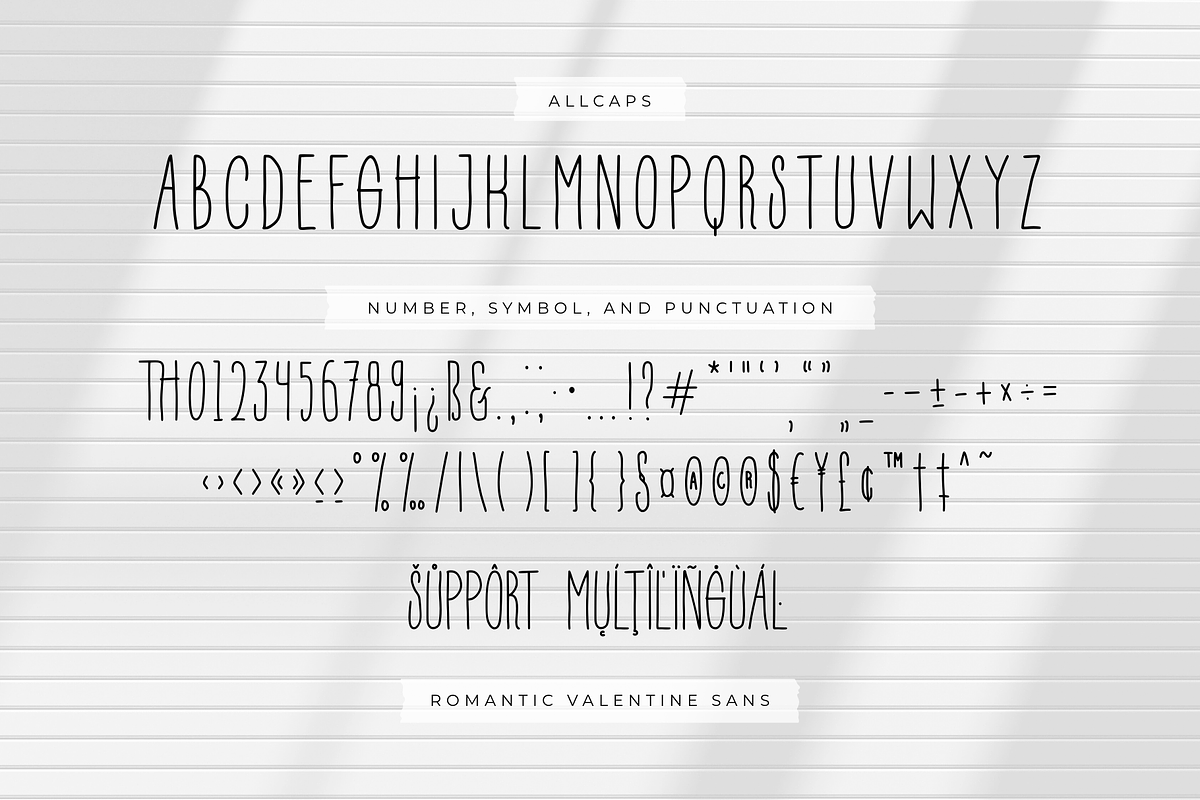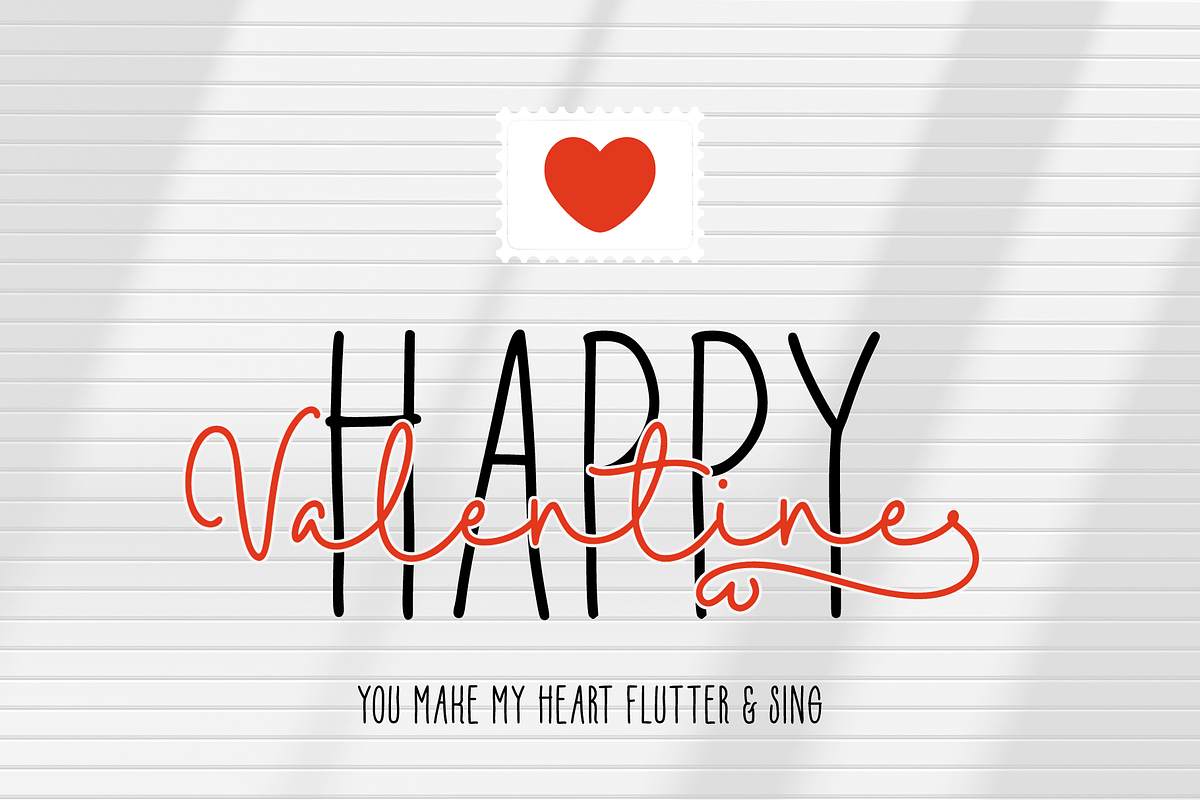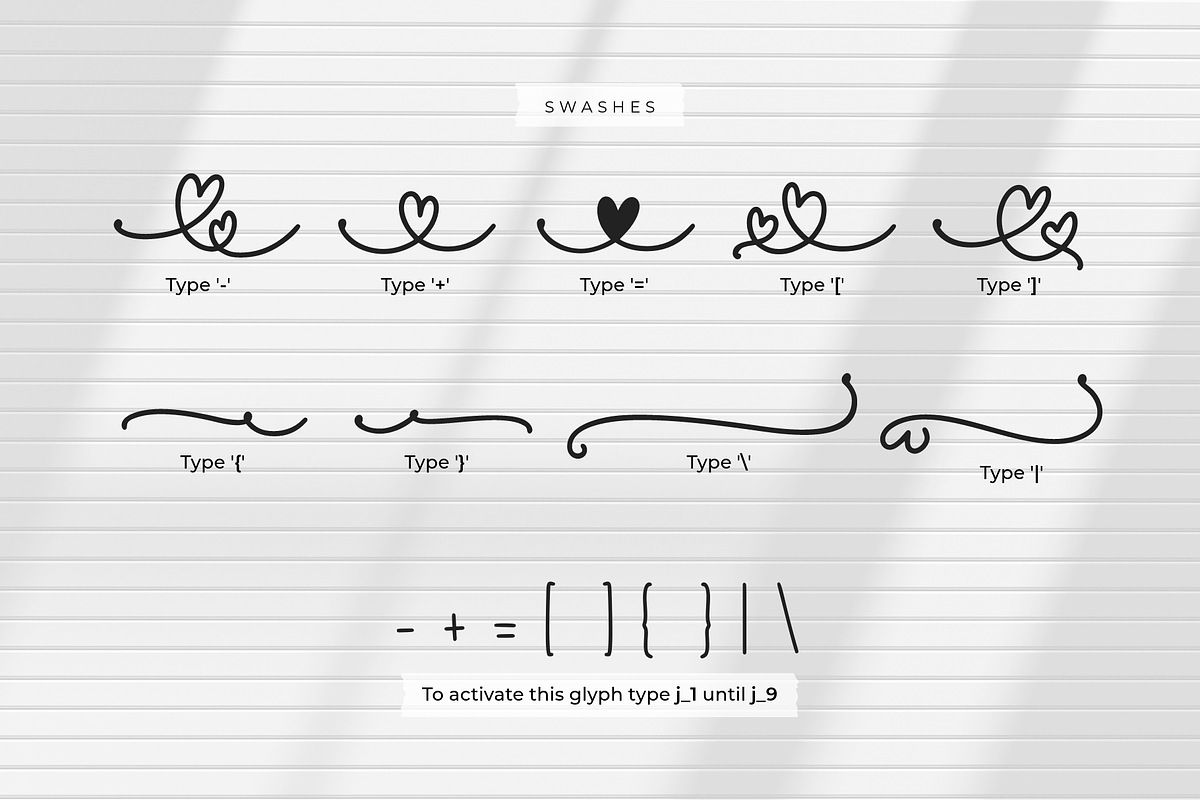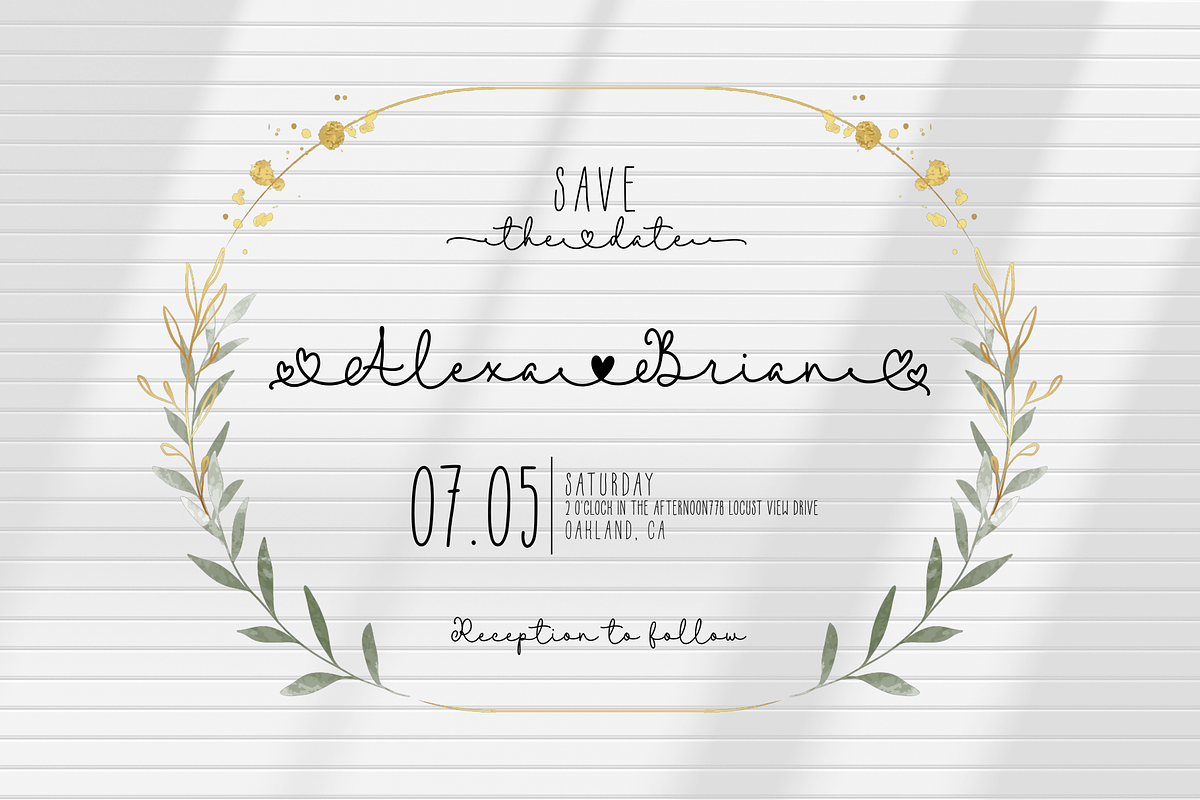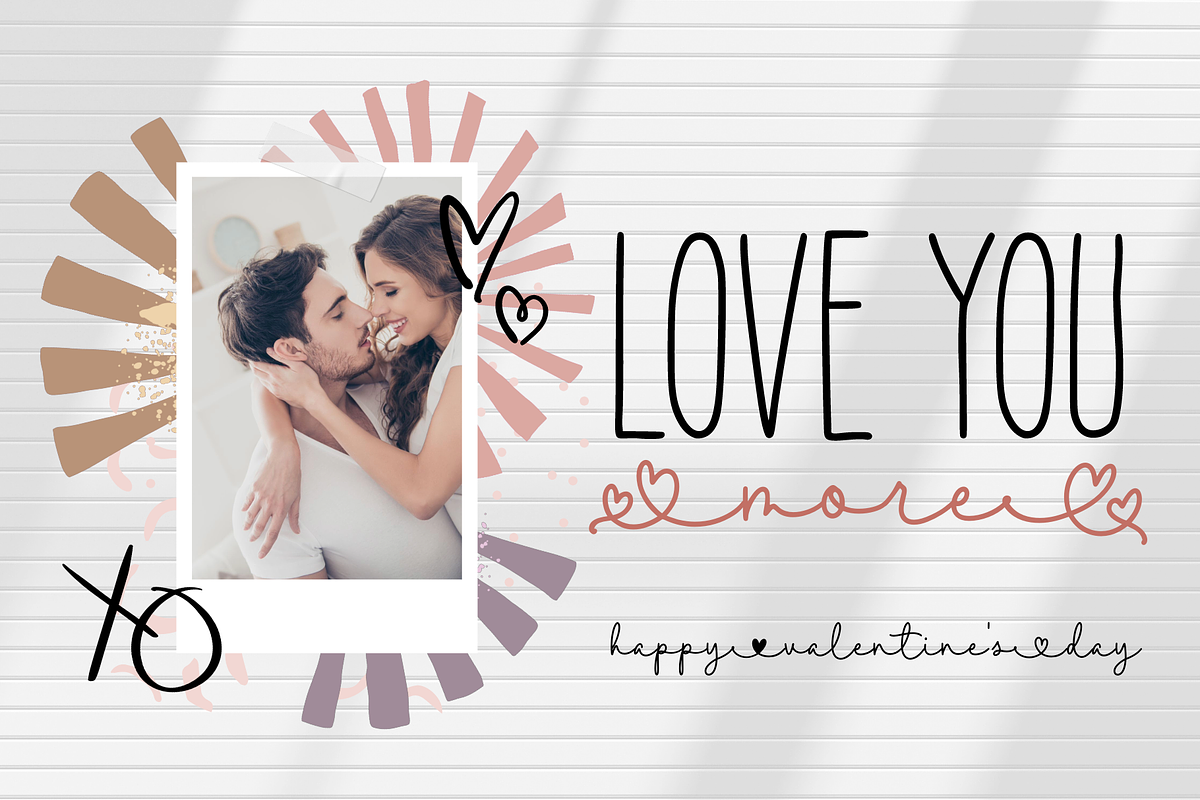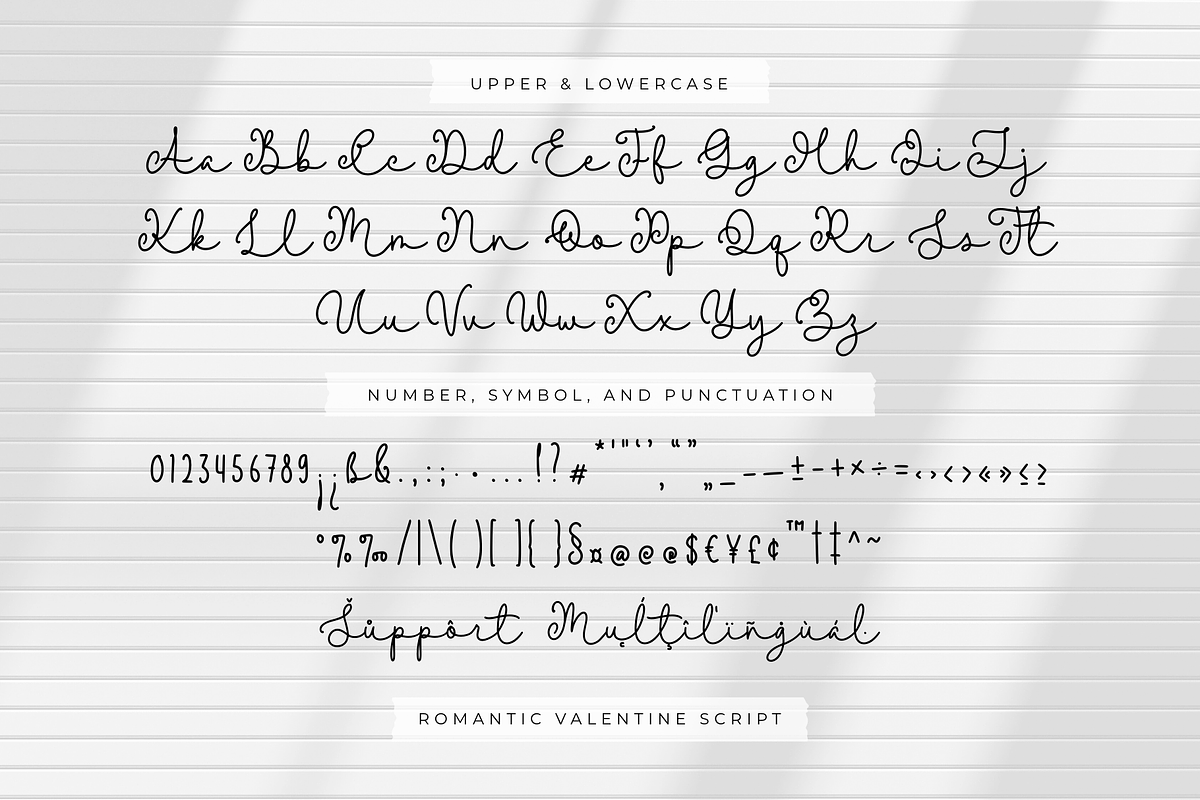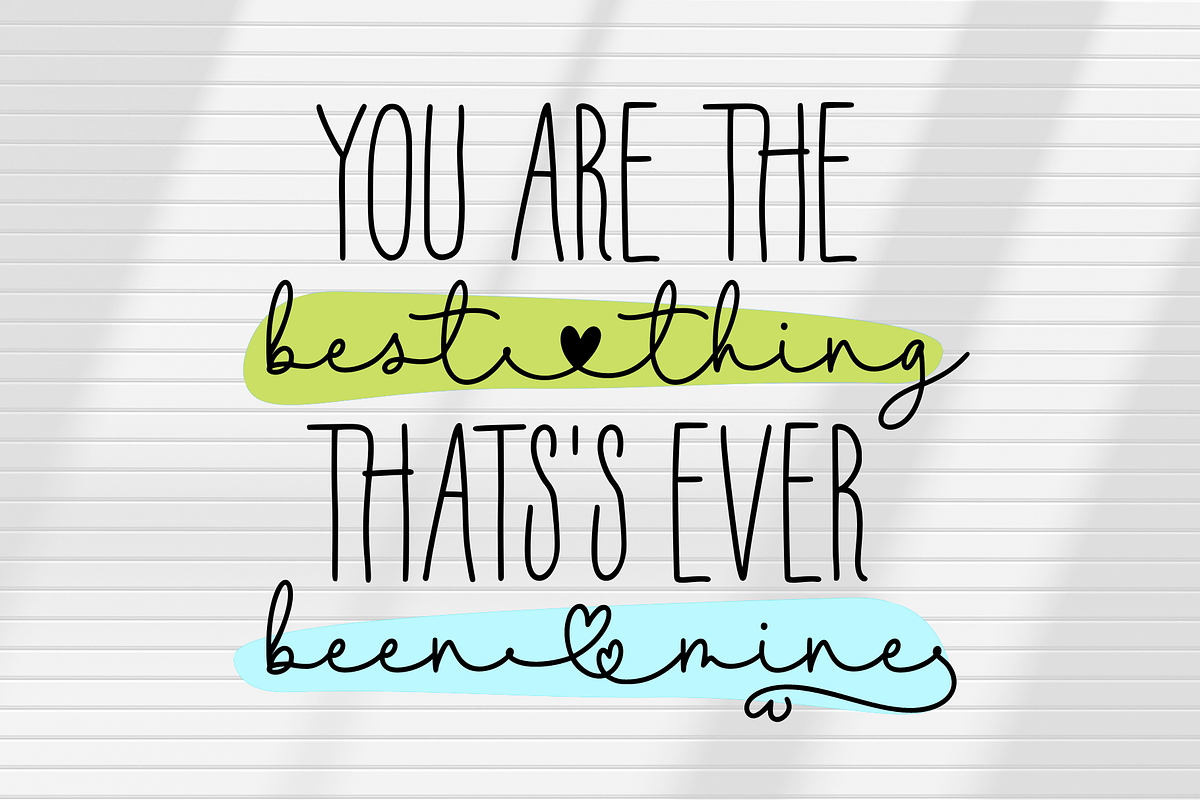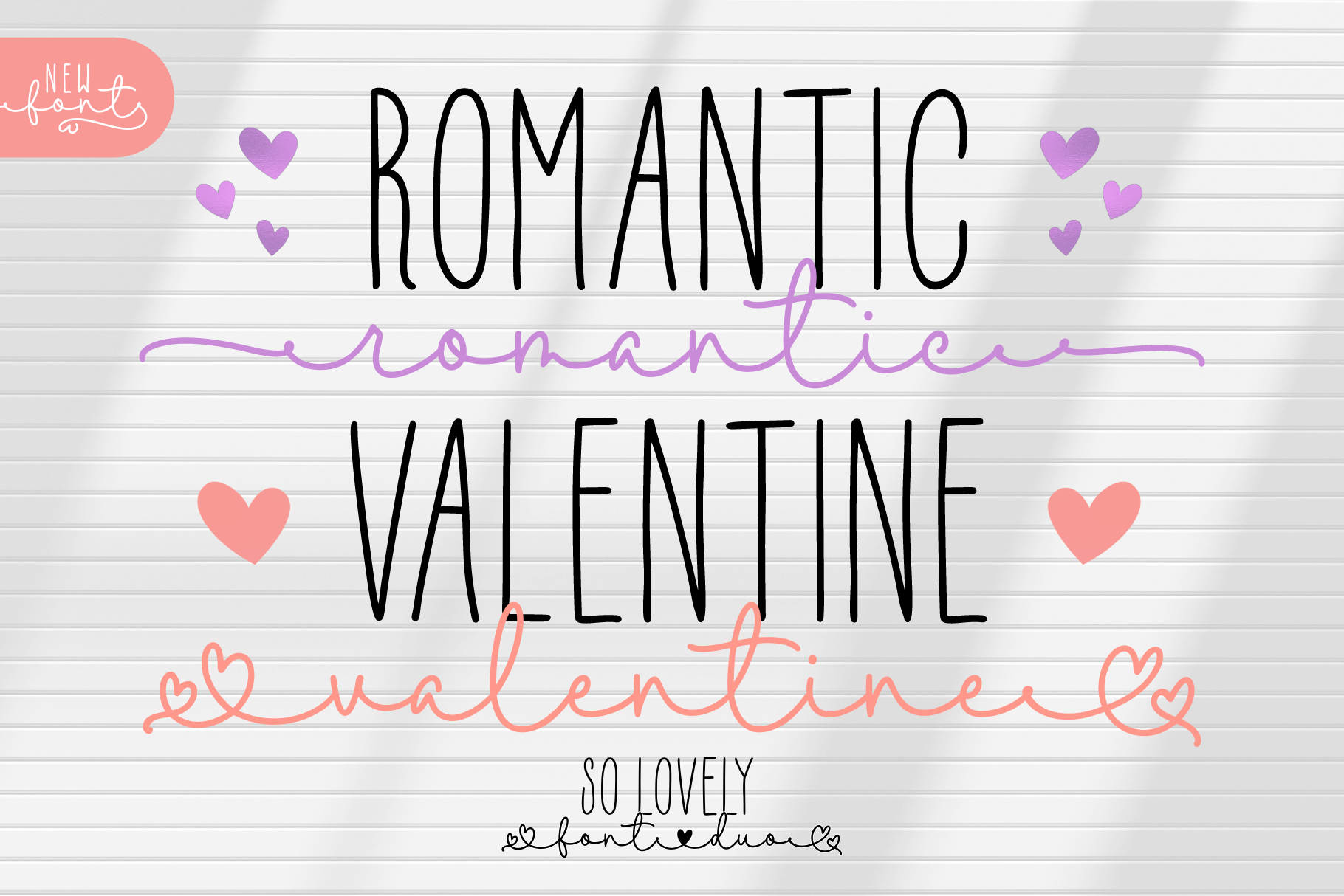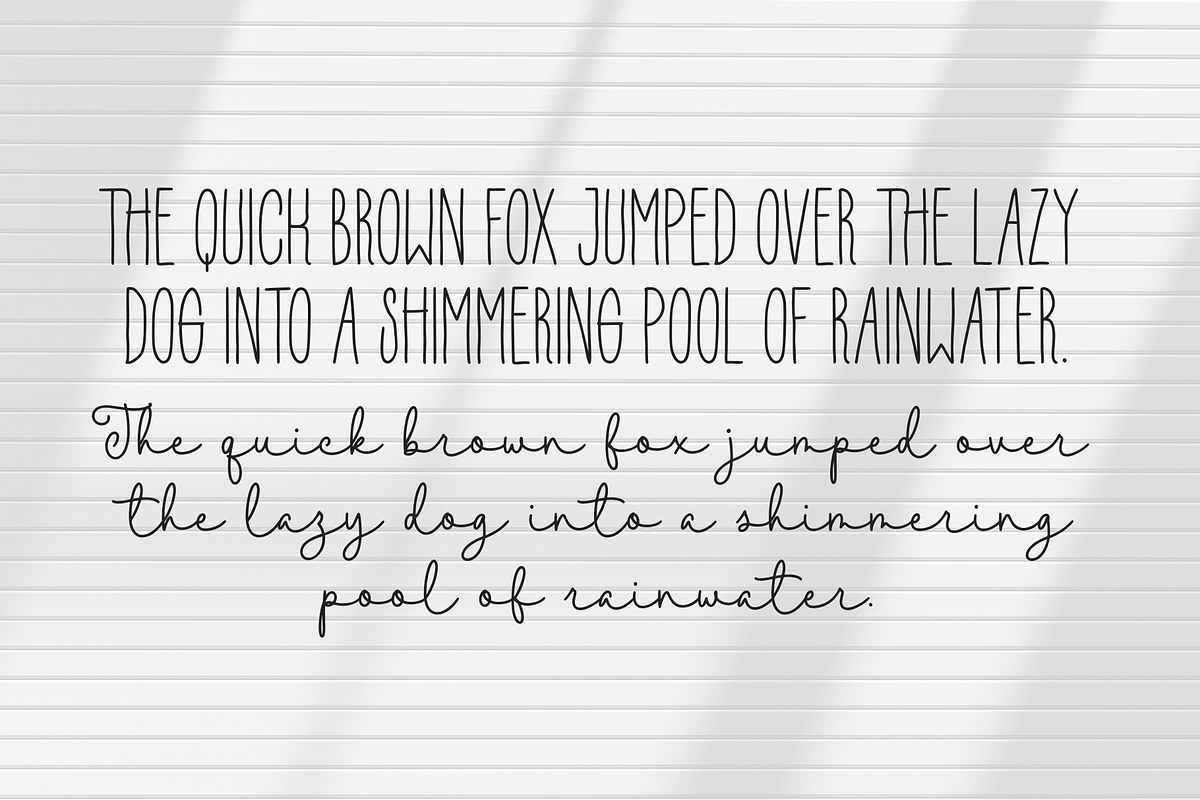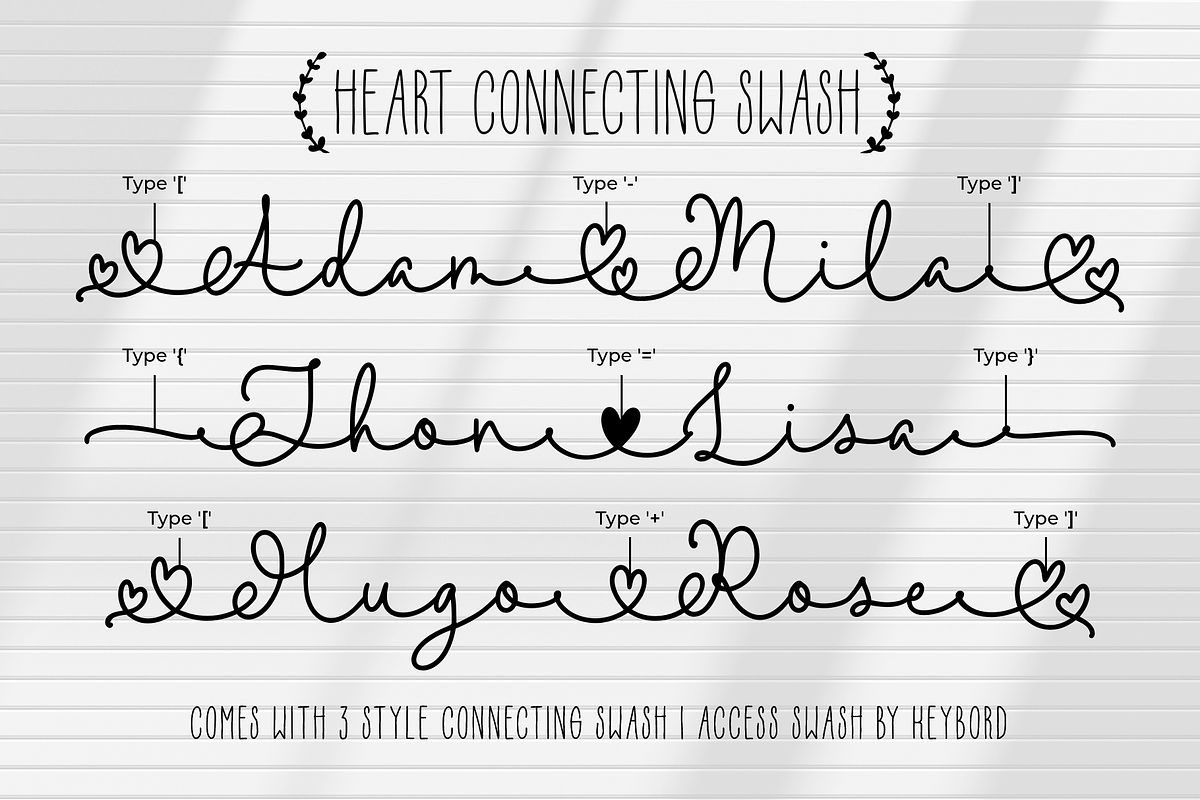
Romantic Valentine Font Duo
Meet Romantic Valentine, the perfect font duo for adding love-filled charm to your designs. This adorable set includes a graceful script and a playful sans serif, ideal for Valentine's themes, weddings, birthdays, quotes, and any project that needs a loving touch. It's easy to use and supports multiple languages, and you can access extra swashes effortlessly using your keyboard. Spread the love with Romantic Valentine.
A set of uppercase and lowercase glyphs (all-caps sans version)
Number, symbol, and punctuation
Some swashes and ligatures